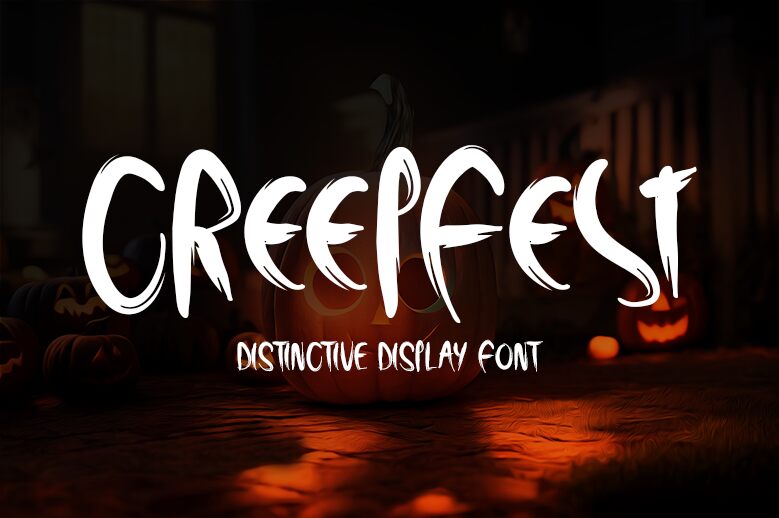
Creepfest font family by Md Shohail Bhuian is a free holiday font family that consists of 2 font styles. Spooky, energetic, expressive, impactful, and eye-catching, it has all the dramatic faculties to make any design visually striking. It’s equipped with features that make it suitable to be used in a variety of horror styles and other unsettling ambiances.
Most likely designed with Halloween in mind, you can use this font in posters, flyers, invitations, magazines, books, websites, games, social media, or Halloween costumes. Horror movie titles and those of books will be perfect for it.